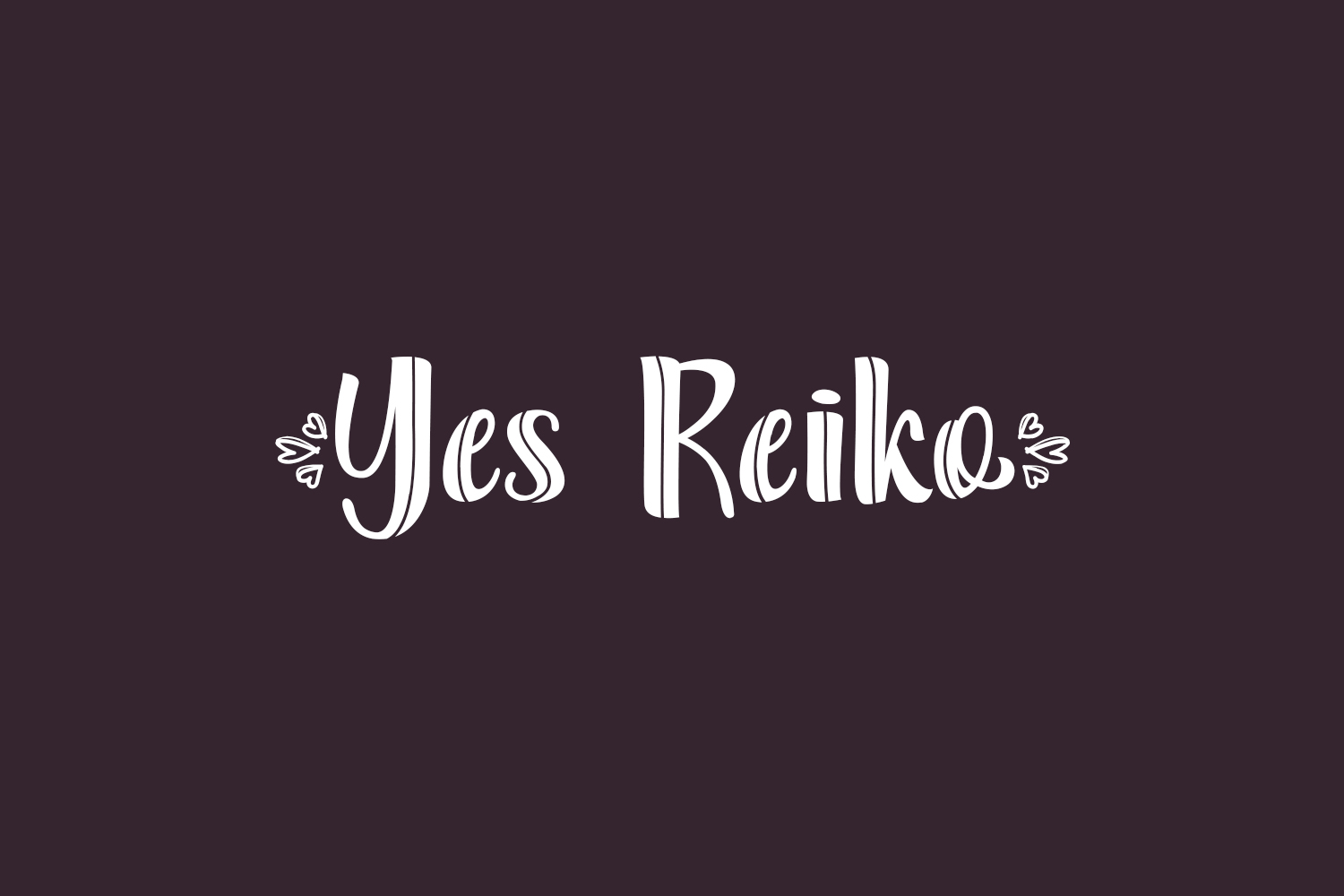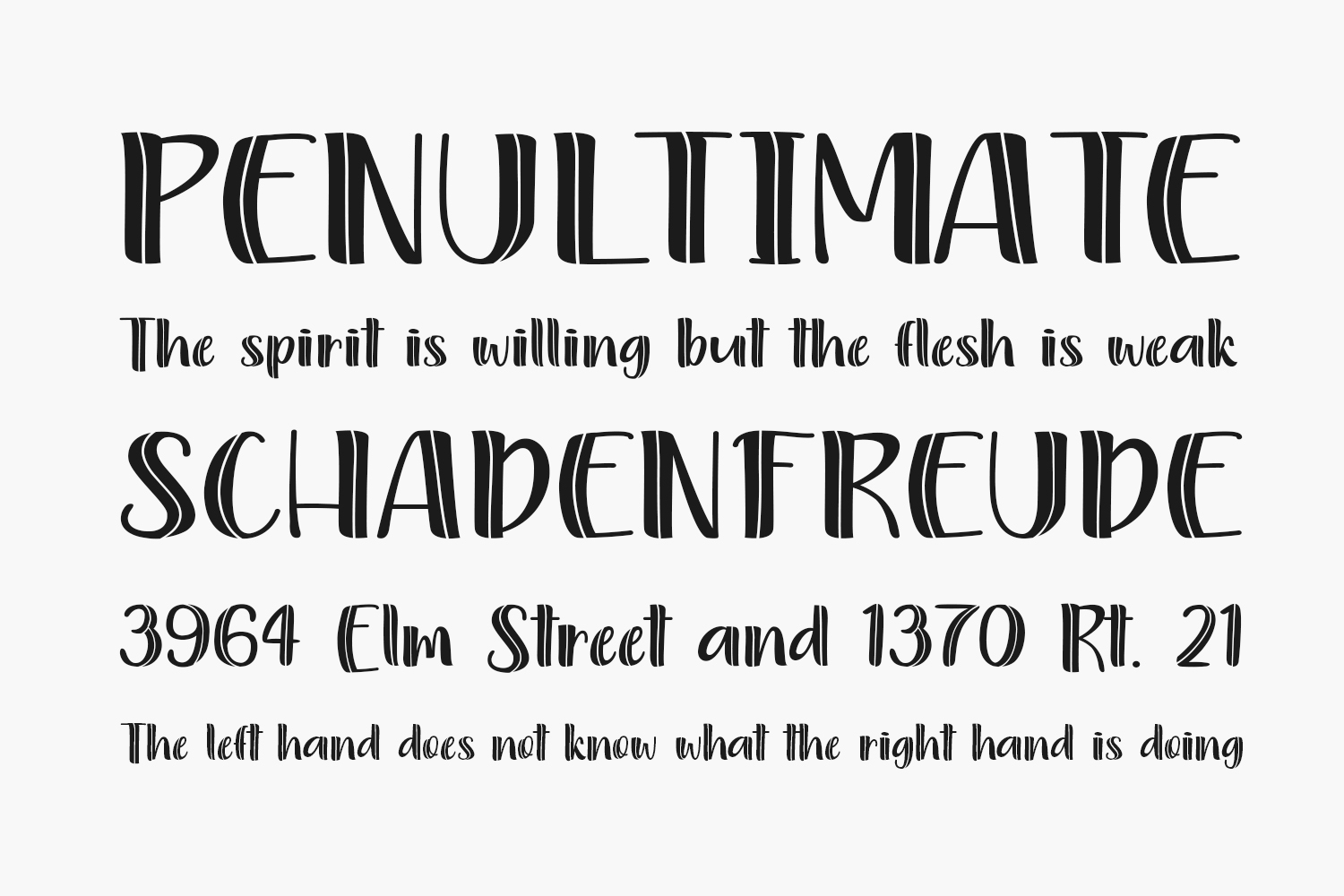
Yes Reiko Free Font is a cool and uniquely designed display font. It works great for magazine covers, packaging, labels, or posters. Yes Reiko Free Font was designed by Typhoon Type™ and is free for personal use only. Please purchase the full version for commercial use.